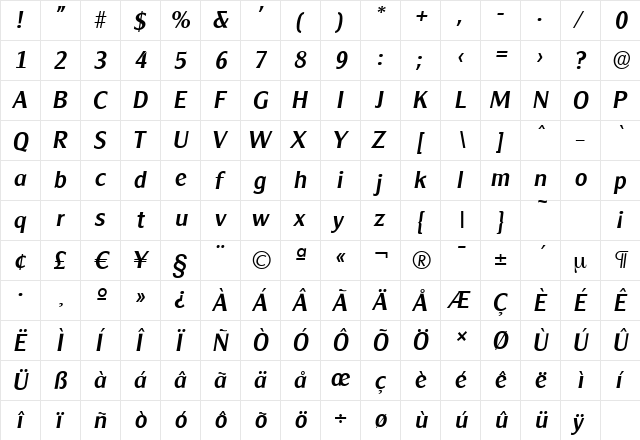
ClearGothicSerial-Medium Italic Font Preview
ClearGothicSerial-Medium Italic
ClearGothicSerial-Medium Italic Font Details
Design Context for ClearGothicSerial-Medium Typeface
ClearGothicSerial-Medium takes a clean, functional approach — its unadorned letterforms prioritise legibility and work reliably across screen and print environments. The dynamic lean of this cut emphasises speed and emphasis in any layout.
Font Pairing: Works well alongside a characterful serif or display font that can carry the expressive load while ClearGothicSerial-Medium handles the functional copy.
Pro Tip: Use ClearGothicSerial-Medium for UI labels, navigation, and short-form body copy where clean legibility is the priority.